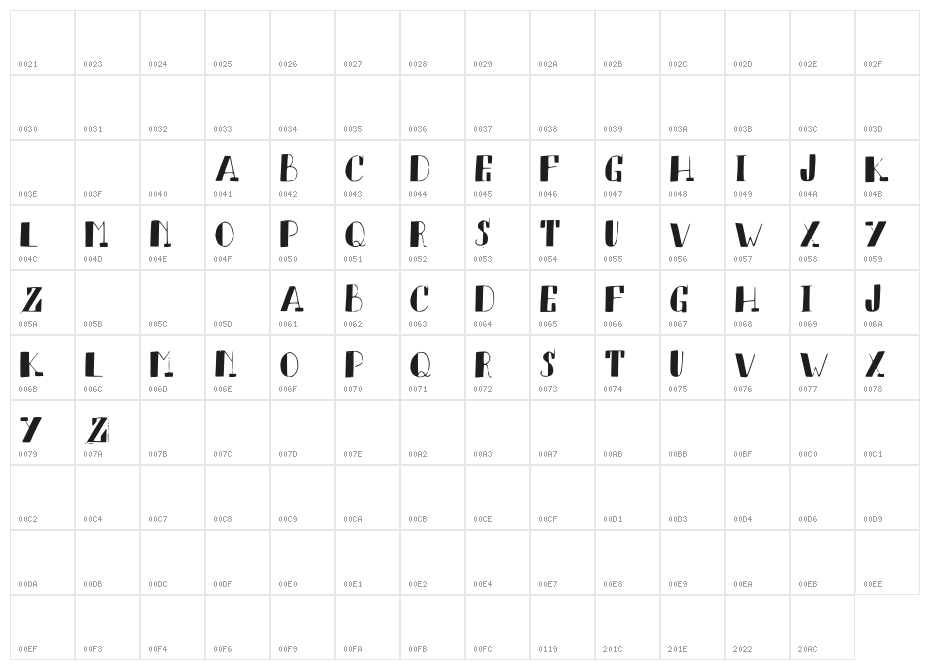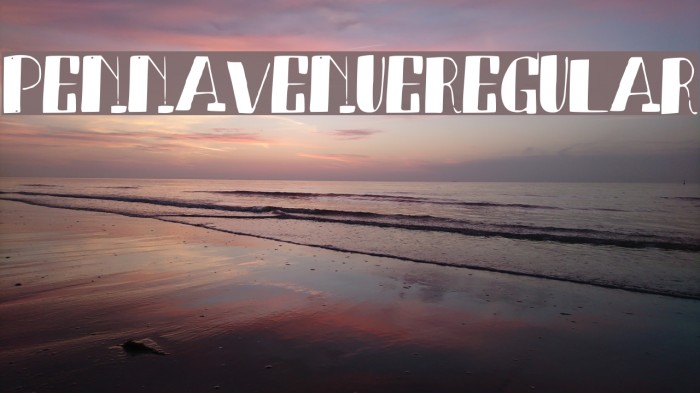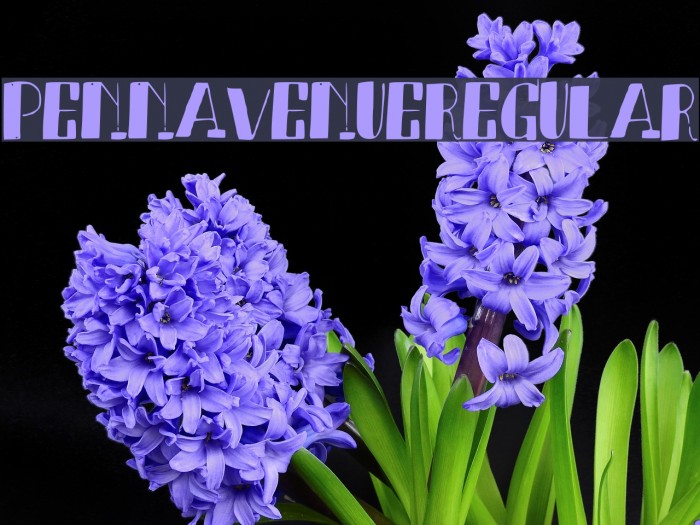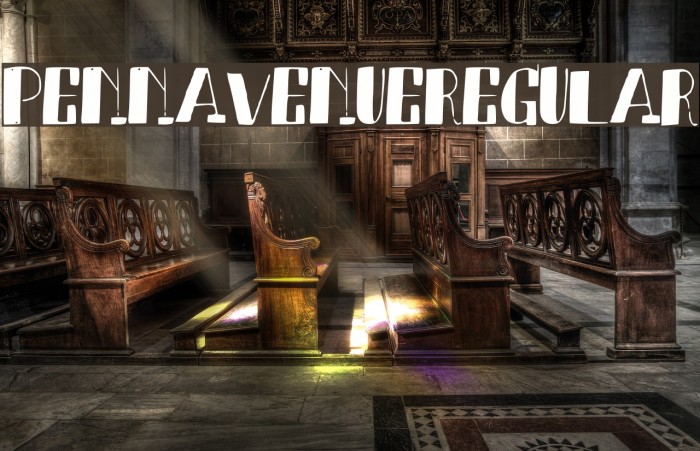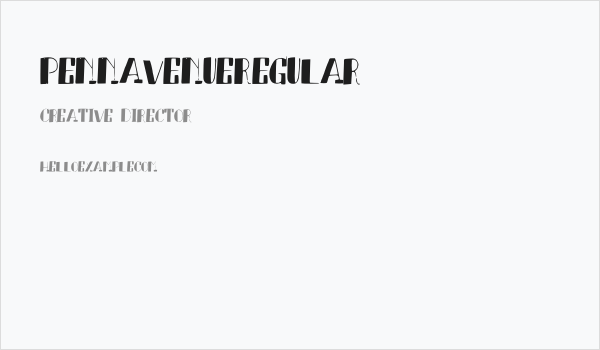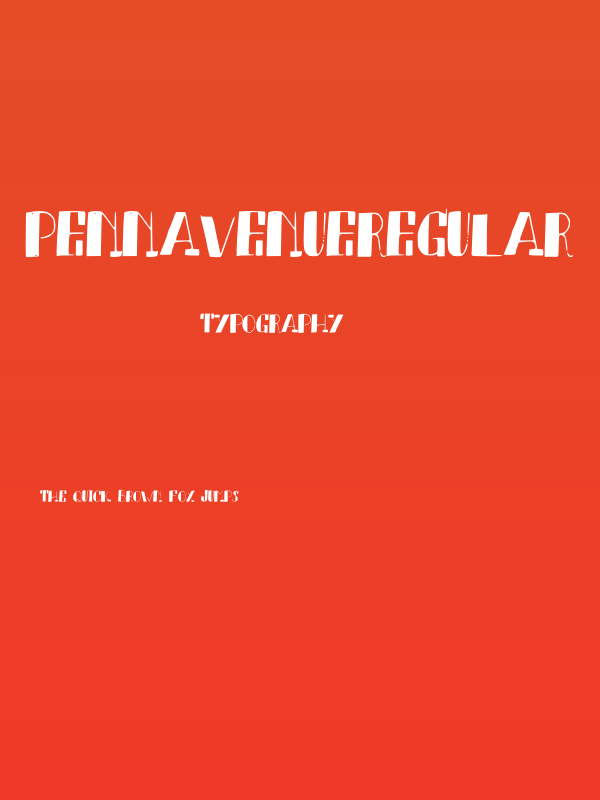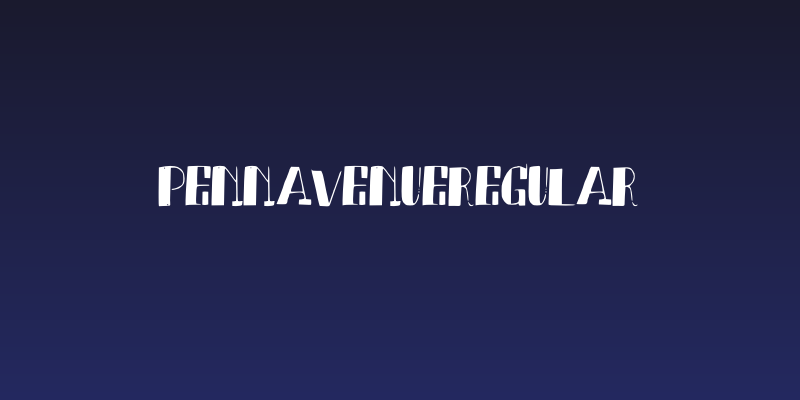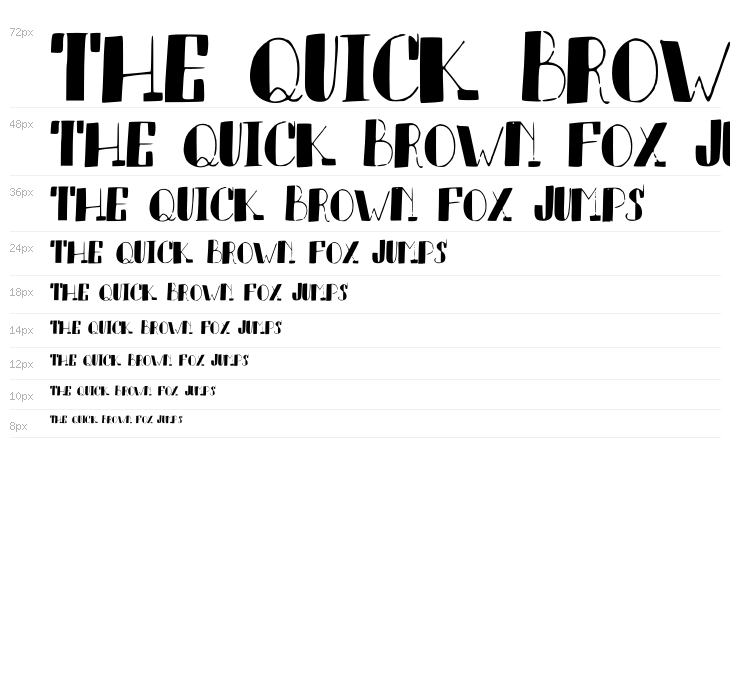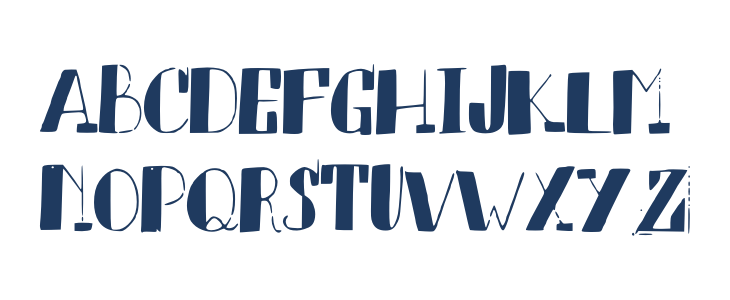
PennAvenue-Regular Font
PennAvenue-Regular Description
This font features a bold and artistic design with a unique blend of thick and thin strokes, creating a striking visual contrast. The uppercase letters are characterized by their dramatic serifs and playful curves, giving them a whimsical yet sophisticated appearance. The font's style is reminiscent of vintage signage, with a modern twist that makes it suitable for contemporary designs. Its decorative elements and high contrast make it an excellent choice for projects that require a bold statement. The font's distinctive look is both eye-catching and memorable, making it ideal for branding, posters, and creative headlines.
| Overall Style | Vintage, Modern |
| Proposed Projects | Ideal for branding, posters, creative headlines, and any project needing a bold statement. |